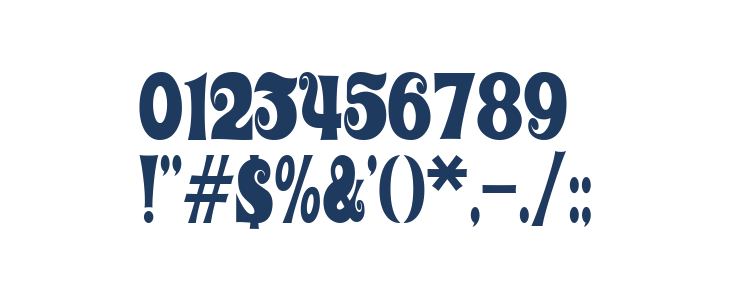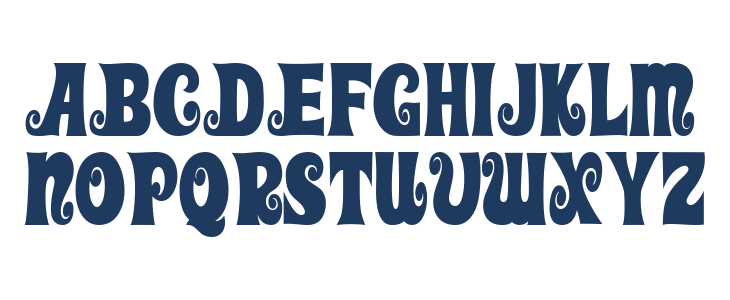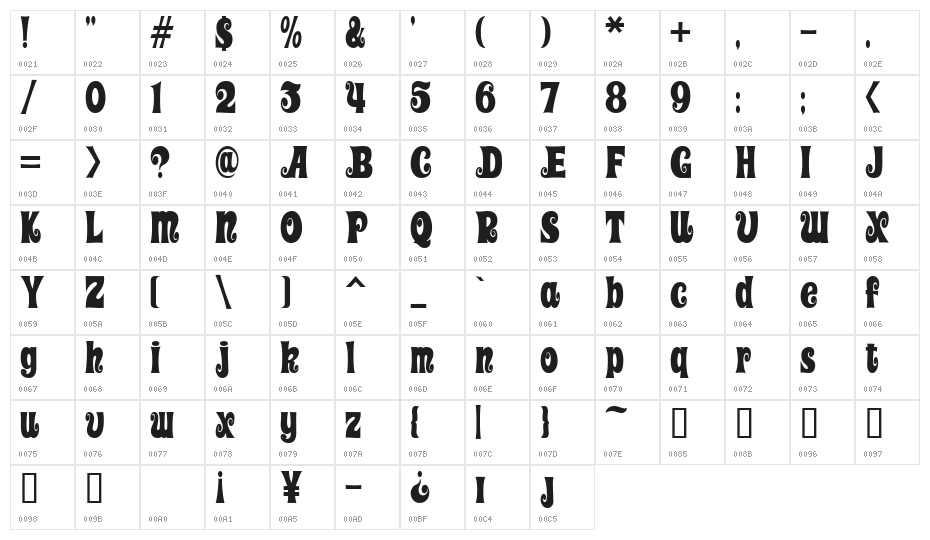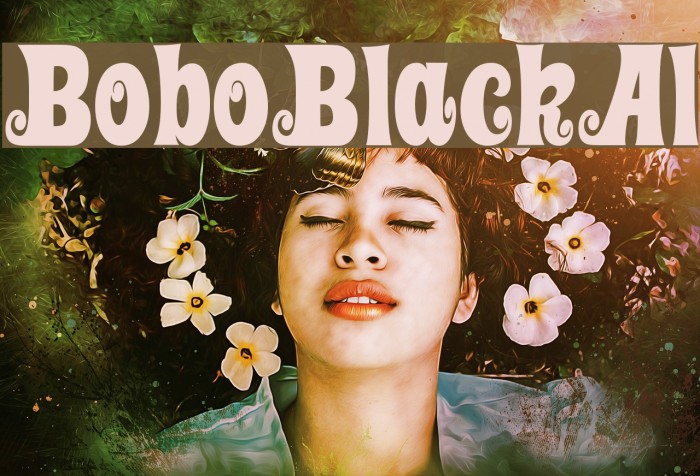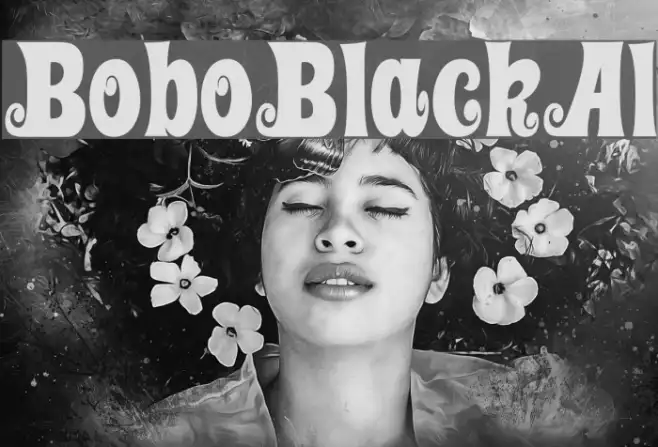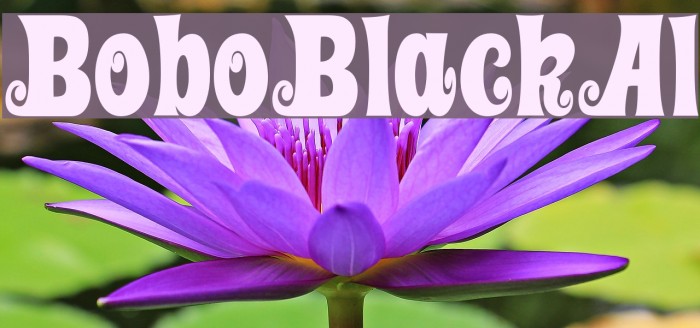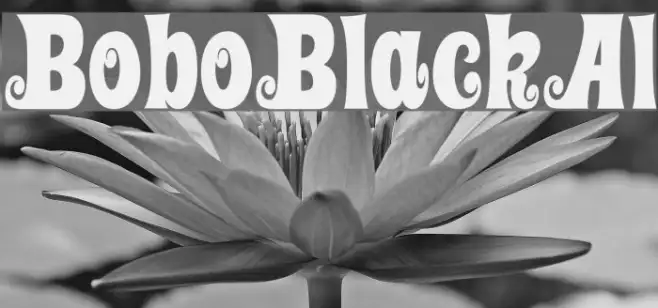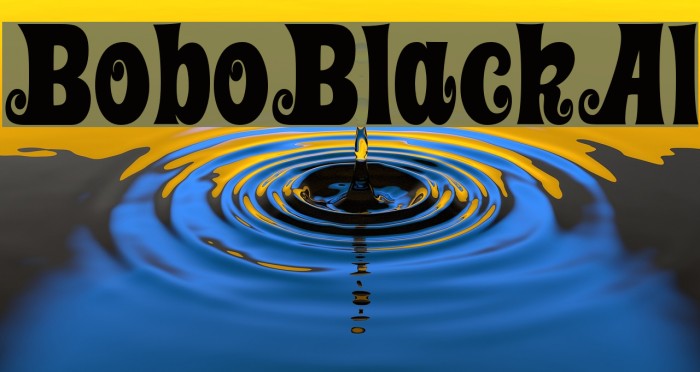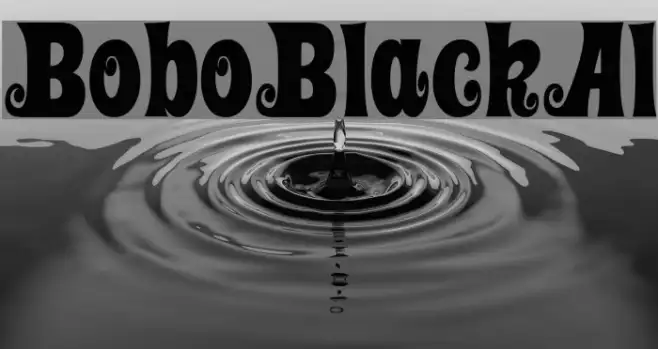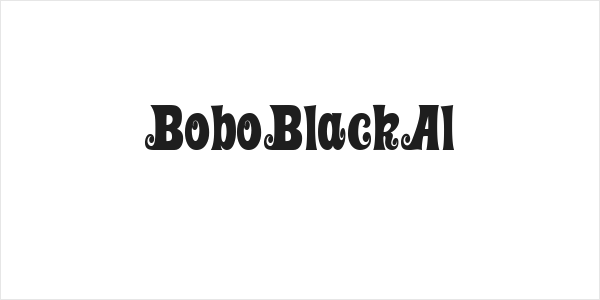
BoboBlackAl Font
BoboBlackAl Description
This font is a bold and playful typeface characterized by its whimsical and decorative elements. Each letter features unique, swirling embellishments that add a sense of movement and flair. The characters are thick and robust, making them highly visible and impactful. The font's style is reminiscent of retro and vintage designs, with a touch of modern creativity. It is ideal for projects that require a fun and eye-catching aesthetic, such as posters, logos, and headlines. The numbers and special characters maintain the same decorative style, ensuring consistency across all text elements.
| Overall Style | Vintage, Decorative |
| Proposed Projects | Ideal for posters, logos, headlines, and any project needing a playful, eye-catching design. |